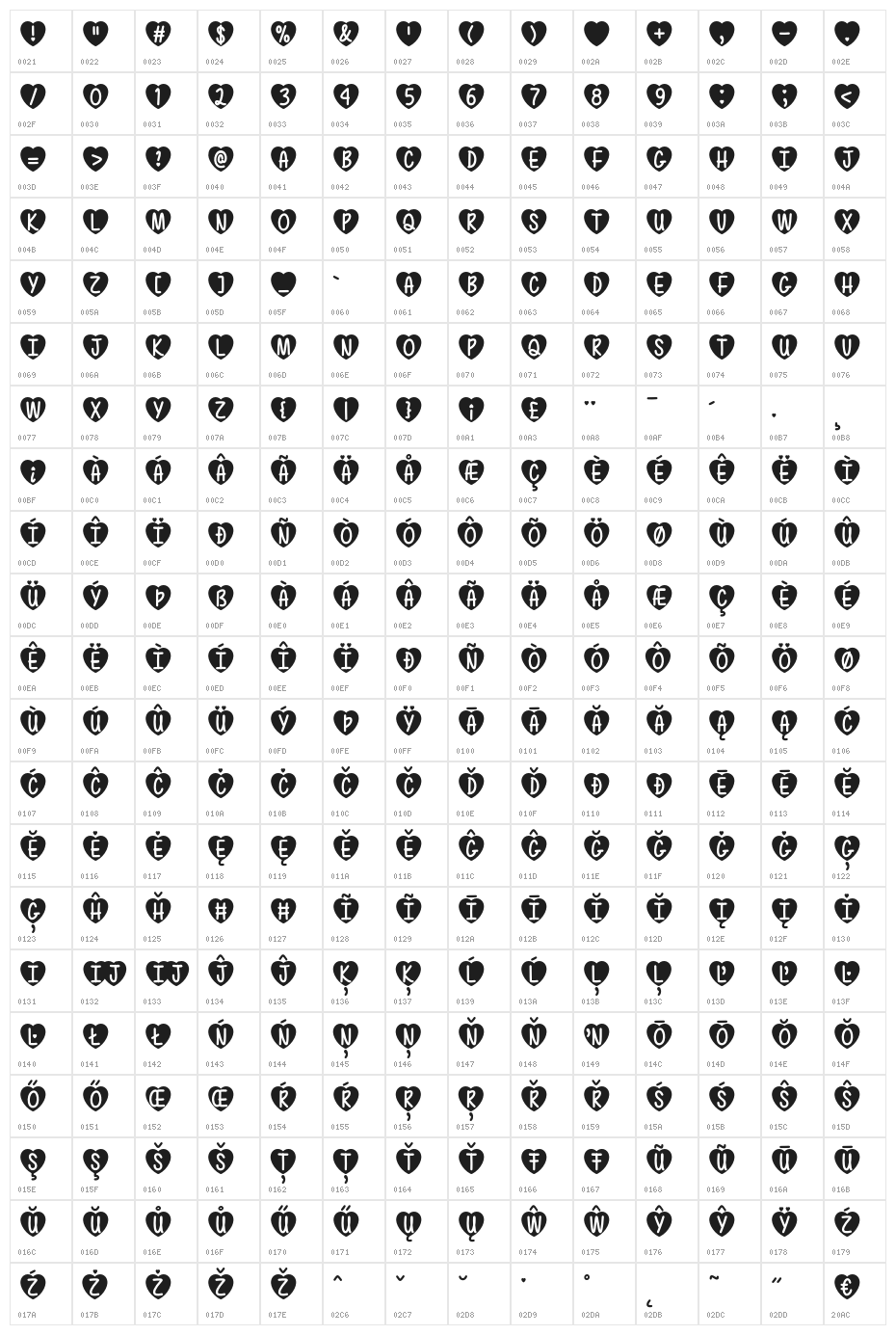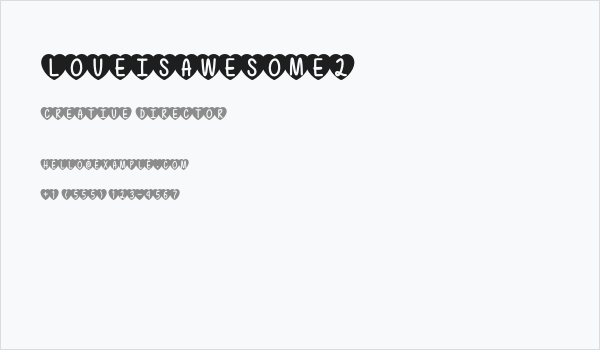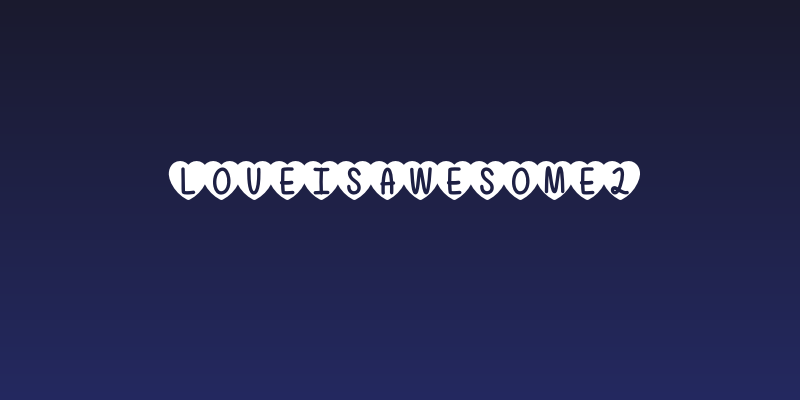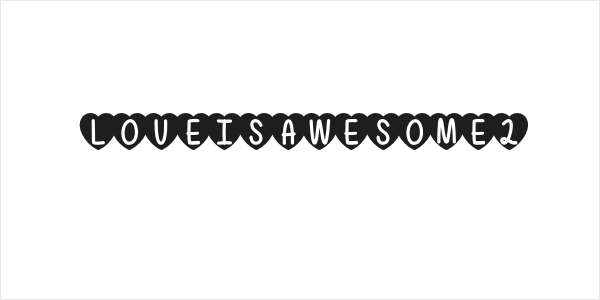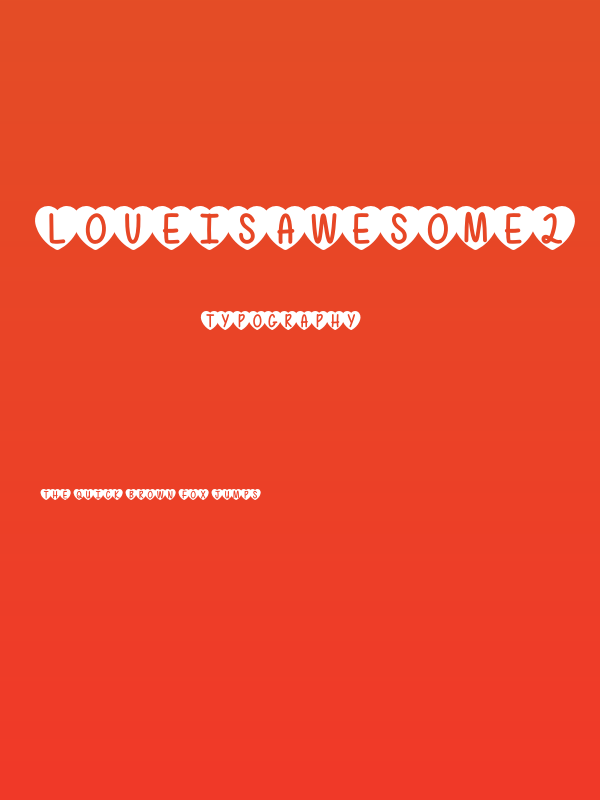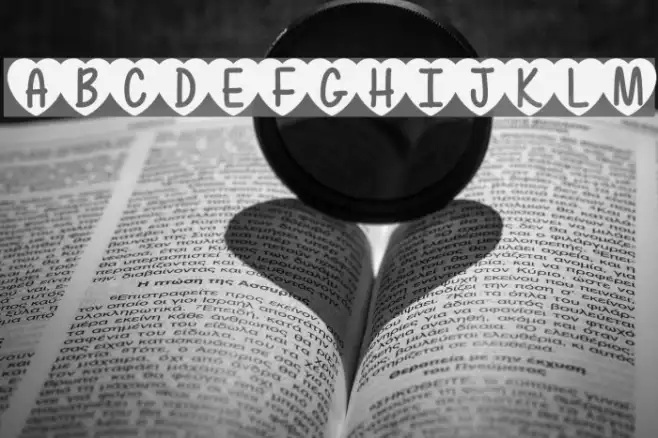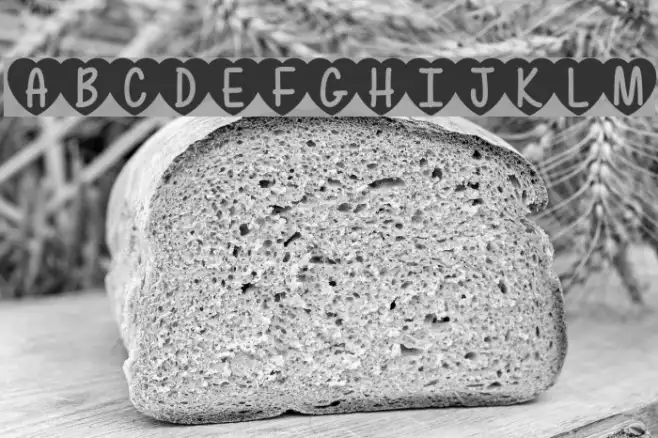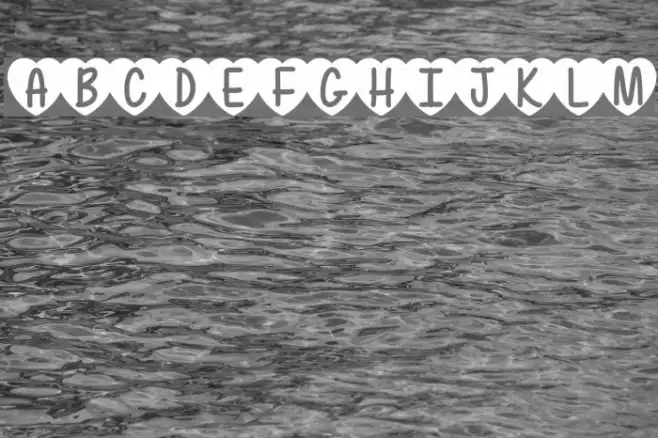
LoveIsAwesome2 Font
LoveIsAwesome2 Description
This playful and charming font features each character enclosed within a heart shape, creating a whimsical and romantic aesthetic. The letters are bold and rounded, with a handwritten style that adds a personal touch. The uppercase and lowercase letters maintain a consistent style, ensuring readability while still being decorative. The numbers and special characters follow the same heart-enclosed design, making the font cohesive and versatile. This font is perfect for projects that require a fun and loving theme, such as Valentine's Day cards, wedding invitations, or romantic social media posts.
| Proposed Projects | Ideal for Valentine's Day cards, wedding invitations, love-themed posters, and social media graphics. |